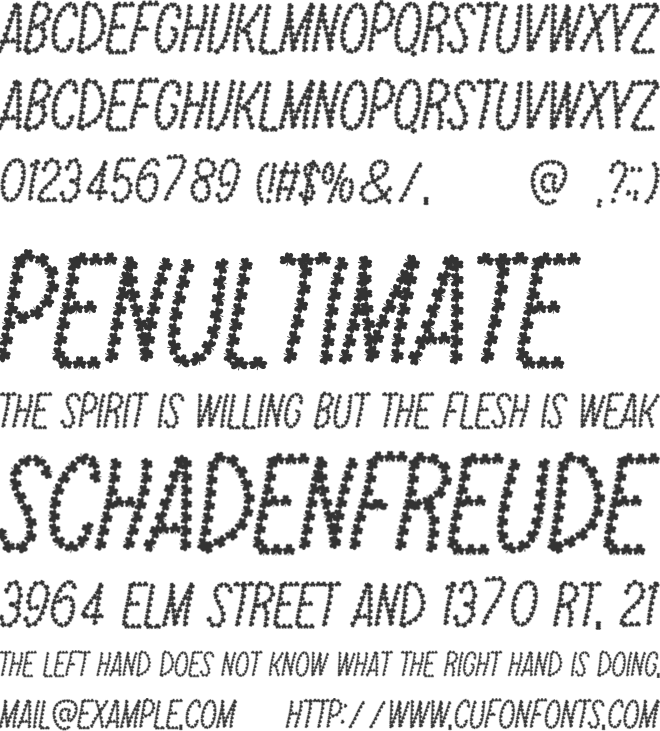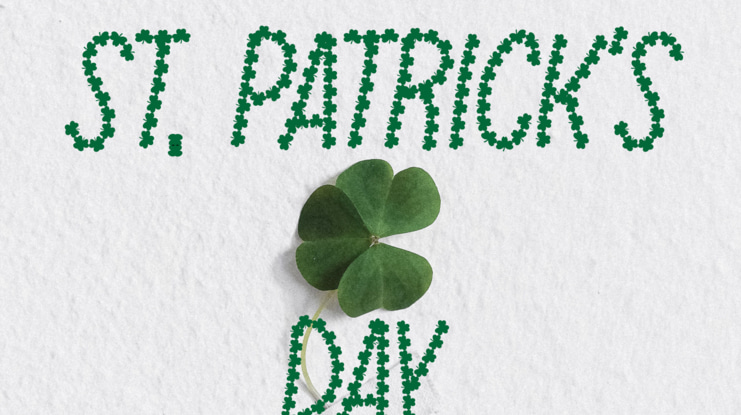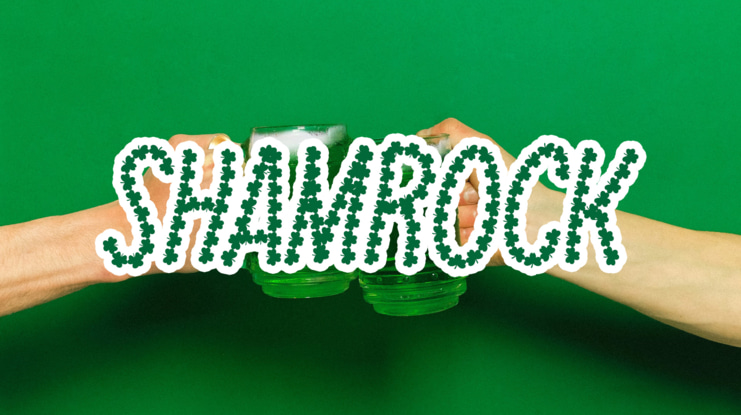
Shamrock Font
Shamrock – Free St. Patrick’s Day Font. Saint Patrick’s Day is still one of the most popular holidays. There are thousands of people that can’t wait for the 17th of March because it’s the only day when people in Ireland, Northern Ireland and around the world celebrate the life of a well-known Saint Patrick.